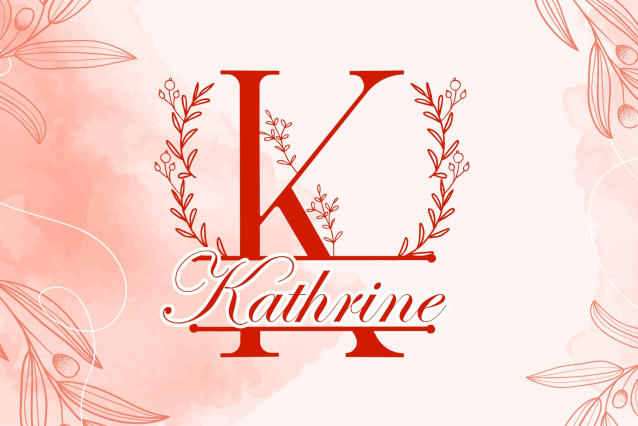
Floral Buds Monogram Font
Floral Buds Monogram is a graceful and elegant display font that intertwines botanical charm with refined letterforms. Each uppercase initial is adorned with gentle floral buds, making it perfect for nature-themed designs, wedding stationery, branding, and handmade product packaging. Whether you’re crafting personalized gifts or enhancing logos with a floral flair, this font brings soft sophistication to your project.